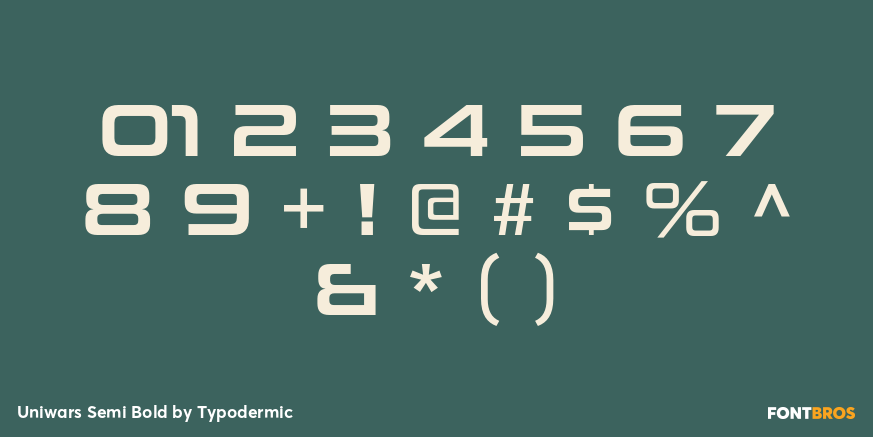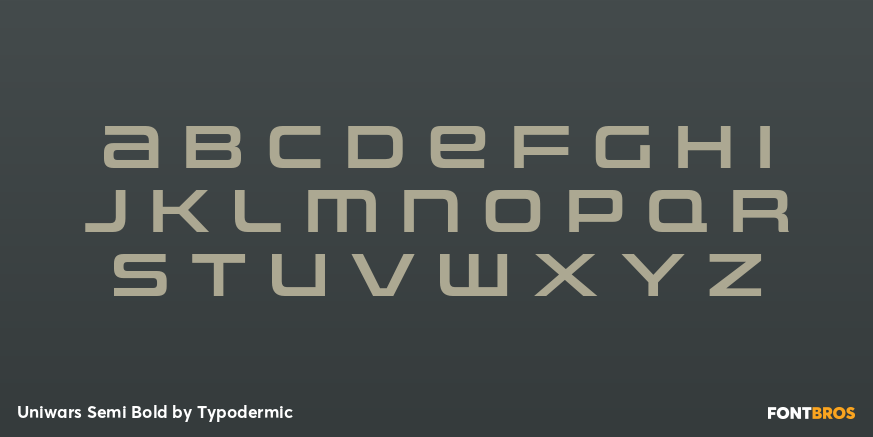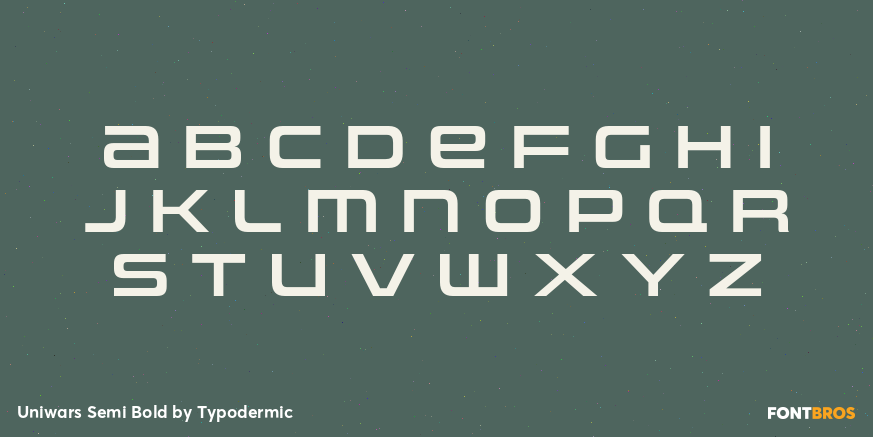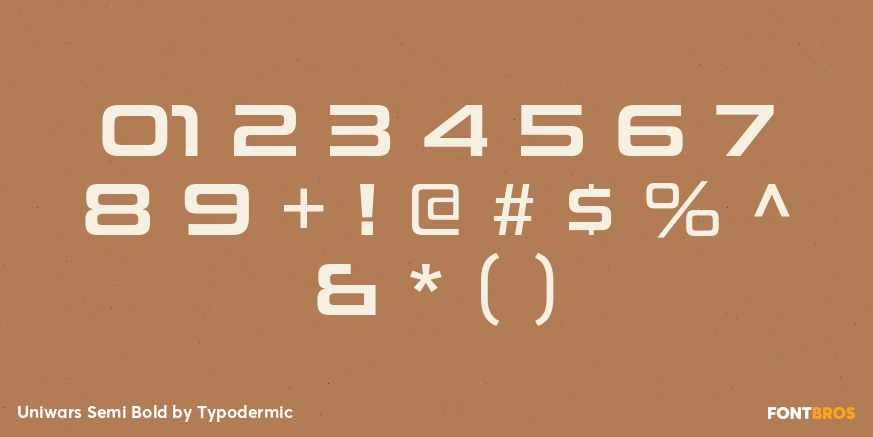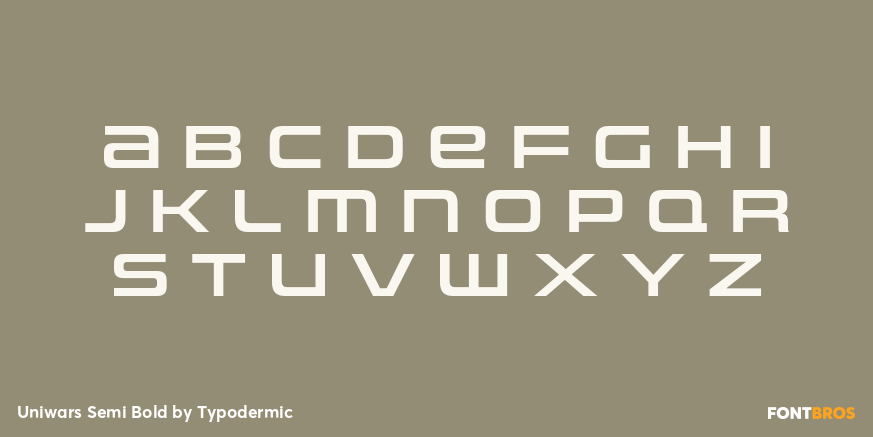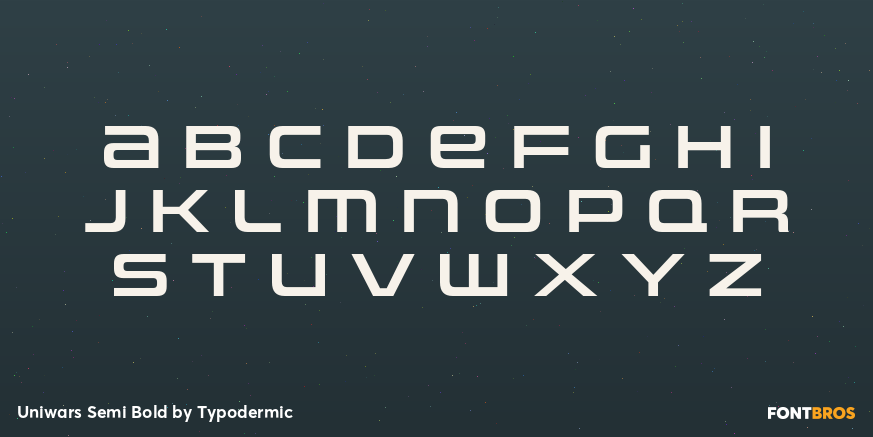
Uniwars Semi Bold
Buy NowSome of the most expensive products a designer has to brand are also awkwardly shaped for ordinary type. A bicycle down tube, robot arm, drone boom, pipeline or pressure vessel may provide plenty of length but very little height. Set a conventional sans in the middle and the name can look undersized; spread the letters apart and the word begins to lose its shape. Uniwars solves the problem with width built into the letters themselves. Its extended capitals turn short company names, product families and model designations into long, low marks that can travel naturally along engineered surfaces.
That geometry grew from a particular strain of Japanese industrial identity. After moving to Japan, designer Ray Larabie kept encountering broad, constructed techno-industrial logos with the look of lettering worked out on graph paper. Rooted in the 1970s and 1980s, that visual language remained visible on Japanese machinery, corporate marks and vehicle badges. Uniwars develops those proportions into an angular, modular display typeface rather than a generic science-fiction effect; its name reaches back to the 1980 arcade shooter UniWar-S.
Electric bicycles and cargo bikes give Uniwars an especially practical job. Battery-bearing down tubes, frame members and other long structural surfaces can make compact wordmarks disappear. Uniwars lets a short brand or model name occupy the frame without resorting to excessive tracking. The same idea carries into electric motorcycles, performance components and battery systems.
Industrial robotics works at another scale. Collaborative robot arms, warehouse automation, semiconductor equipment and autonomous material-handling systems need manufacturer names and equipment-series identities across housings, rails and articulated structures. Uniwars can handle that branded layer while a conventional sans carries controls, warnings and specifications.
Hydrogen systems, pipelines, pressure vessels, pumps, compressors, cargo drones, eVTOL aircraft and other emerging hardware present the same underlying problem: long surfaces that reward a wide, shallow mark. Across sixteen styles, Uniwars turns that physical constraint into a reason for choosing the typeface.